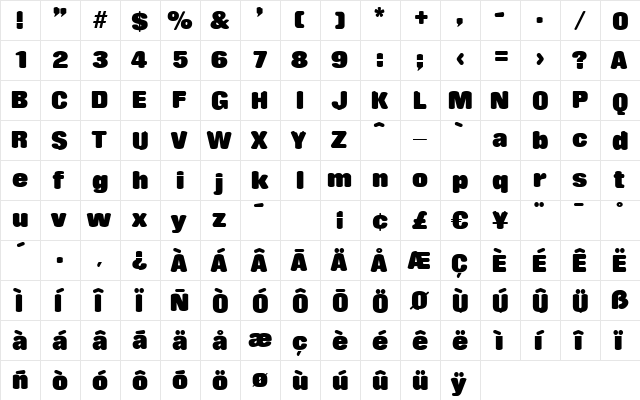
R790-Deco Regular
Design Context for R790-Deco Typeface
R790-Deco is a composed and adaptable typeface that performs quietly and consistently across a wide range of design contexts.